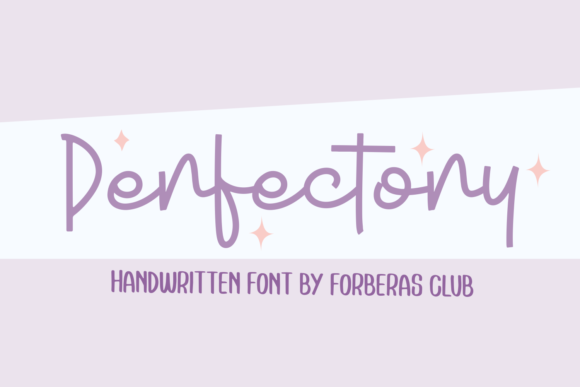
Journey into the world of Perfectoy Font, a mesmerizing script font family that will captivate your audience and make your branding shine. This handcrafted masterpiece is meticulously designed to leave an unforgettable impression, transforming your projects into elegant and captivating works of art.
With Perfectoy Font, your designs will dance with a rhythm of sophistication, whether you're crafting headings, logos, advertisements, or printed quotes. Its graceful strokes and unique letterforms bring life to your creations, making them stand out amidst a sea of ordinary fonts.
Unleash your creativity and let Perfectoy Font inspire you. Its versatility knows no bounds, allowing you to weave it into your packaging designs, elevate your website's aesthetics, or create captivating social media branding that resonates with your audience.
Embrace the beauty of Perfectoy Font's smooth curves and precise details. It's the perfect companion for cut machines like Cricut and Silhouette, allowing you to effortlessly transform your digital designs into tangible works of art.
Don't settle for ordinary fonts that blend into the background. Choose Perfectoy Font and let your designs shine with a captivating elegance that will leave a lasting impression.